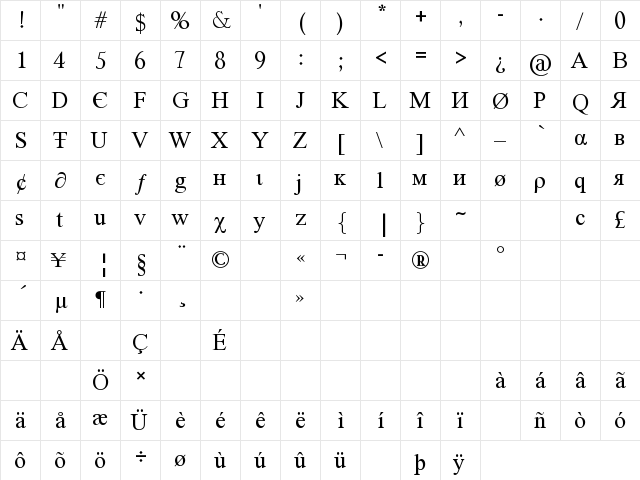
tiboo5font Regular Font Preview
tiboo5font Regular
tiboo5font Regular Font Details
Design Context for tiboo5font Typeface
tiboo5font takes a measured approach to typography — its balanced proportions and neutral character make it a reliable workhorse for both digital and print work.